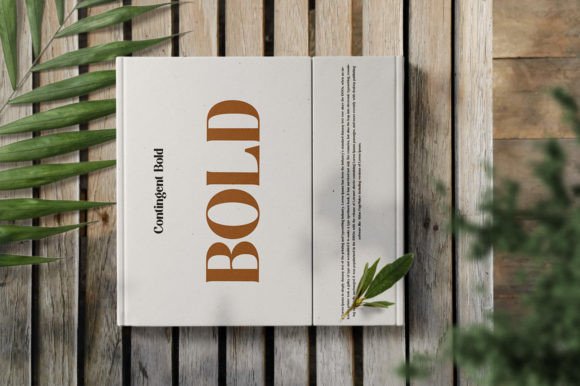
Contingent Duo Font
Contingent is a stylish and modern font duo made up of an elegant script and unique serif font. With a trendy and minimalist look, Contingent Duo brings a clean and luxurious style to your website, logos, brand identities, social media quotes, wedding stationery, and more!